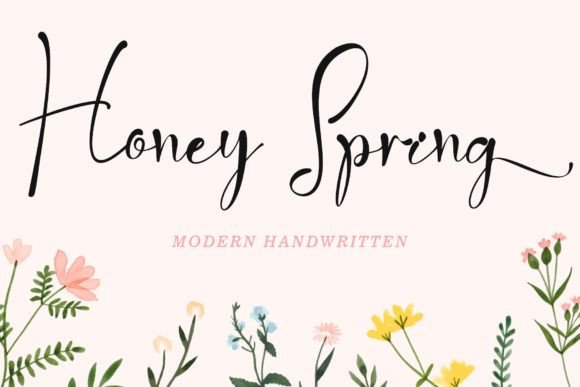
Romance your words with Honey Spring Font, an enchanting creation by Selvia Design, a name synonymous with artistic excellence. This mesmerizing script font family exudes effortless grace and captivating elegance that will leave you spellbound.
Dive into the world of creativity and transform your designs into masterpieces with Honey Spring. Its natural flow and delicate curves will caress your words, evoking a sense of timeless beauty. Elevate your Instagram posts, breathe life into your calligraphy projects, and turn every letter into an expression of art.
Honey Spring is not just a font; it's an invitation to embark on a creative journey. Its PUA encoding grants you access to a treasure trove of glyphs and ligatures, empowering you to unleash your imagination and create designs that speak to the heart.
With Honey Spring, your words will blossom into a symphony of elegance. Embrace the allure of this enchanting font and witness the transformation of your creative visions into breathtaking realities.